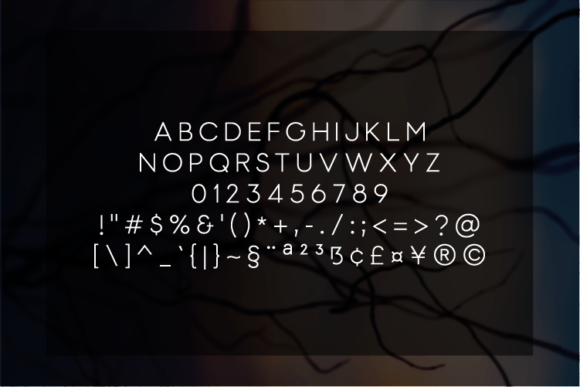
Introducing Gabriely Light Font: Elevate Your Designs with a Touch of Modern Elegance
In the world of typography, a font can make or break a design. It’s the foundation upon which the entire visual identity of a project is built. For designers and crafters seeking a clean, modern, and timeless look, Gabriely Light Font is an exceptional choice. This sans serif typeface has been meticulously crafted with attention to detail, making it an essential asset for any creative endeavor.
The Essence of Gabriely Light Font
Gabriely is characterized by its simplicity and elegance. As a clean, modern sans serif font, it exudes a sense of sophistication and versatility. Its design is rooted in the principles of modern typography, ensuring that it remains relevant and stylish across various applications. Whether you’re working on a branding project, website design, or crafting a marketing campaign, Gabriely Light Font is poised to elevate your work.
Key Features of Gabriely Light Font
- Clean and Modern Design: Gabriely boasts a sleek and contemporary look, making it perfect for projects that demand a fresh and modern aesthetic.
- Attention to Detail: The font has been passionately designed with great attention to detail, ensuring that every letterform and curve is meticulously crafted.
- Simplistic and Timeless: Gabriely’s design ensures that your projects will have a timeless quality, avoiding trends and focusing on enduring style.
- Versatility: As a sans serif typeface, Gabriely is incredibly versatile, suitable for a wide range of applications from digital interfaces to print materials.
Why Choose Gabriely Light Font?
Choosing Gabriely Light Font for your projects comes with numerous benefits. Its clean and modern design ensures that your work stands out in a crowded digital landscape. The font’s simplicity makes it highly legible, even at smaller sizes, which is particularly beneficial for web and mobile applications. Moreover, its timeless quality means that your designs won’t become dated, saving you the cost and effort of future redesigns.
Applications of Gabriely Light Font
The versatility of Gabriely Light Font makes it suitable for a myriad of applications. Here are a few ideas to get you started:
- Branding and Logotypes: Create a lasting impression with a clean and modern logo that stands out.
- Web and Mobile Design: Enhance user experience with a highly legible and modern font.
- Marketing and Advertising: Give your campaigns a professional and timeless look.
- Print Materials: From brochures to business cards, Gabriely adds a touch of elegance to any print project.
Gabriely Light Font is more than just a typeface; it’s a design essential that can transform your projects with its clean, modern, and timeless aesthetic. Its meticulous design and versatility make it an invaluable asset for designers and crafters aiming to create impactful and stylish work. By incorporating Gabriely into your design toolkit, you’re not just choosing a font; you’re embracing a design philosophy that prioritizes simplicity, elegance, and effectiveness.
Whether you’re a seasoned designer or a crafting enthusiast, Gabriely Light Font is poised to become your go-to choice for projects that demand a modern edge with a timeless twist. Experience the difference that a well-crafted font can make in your designs.